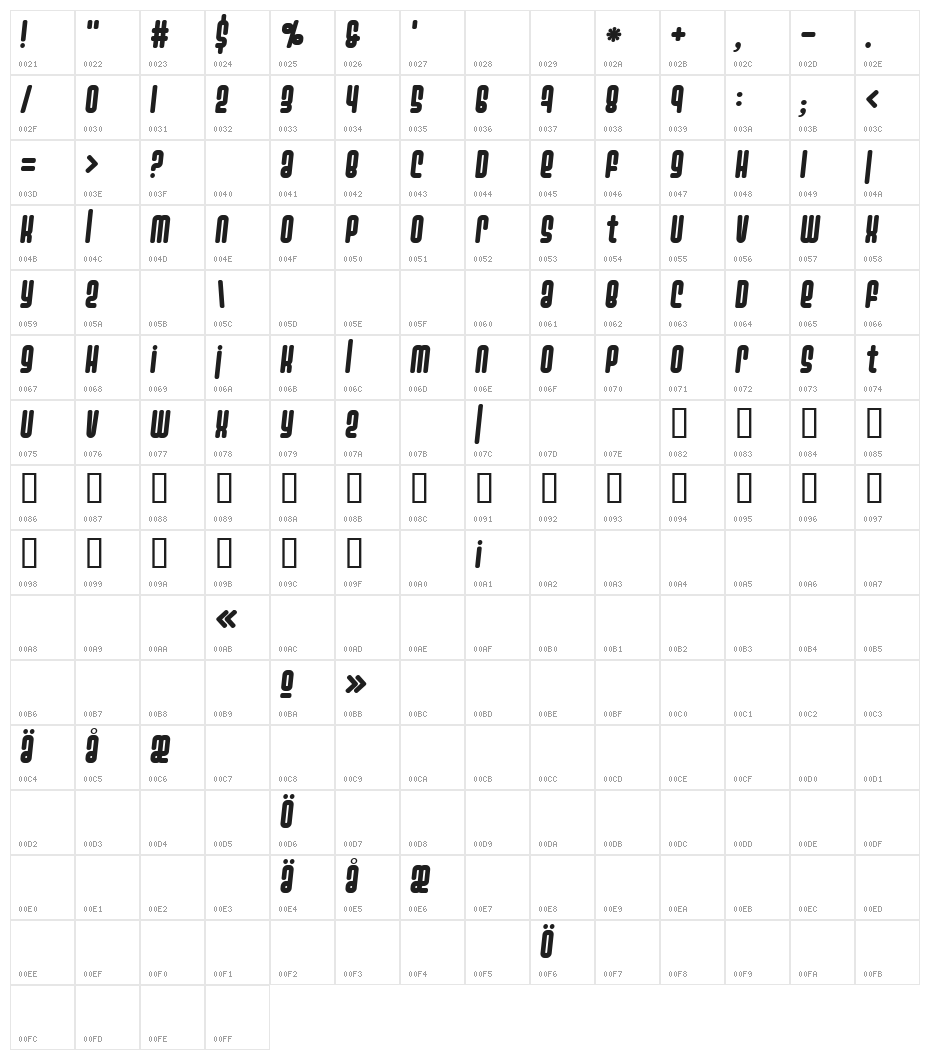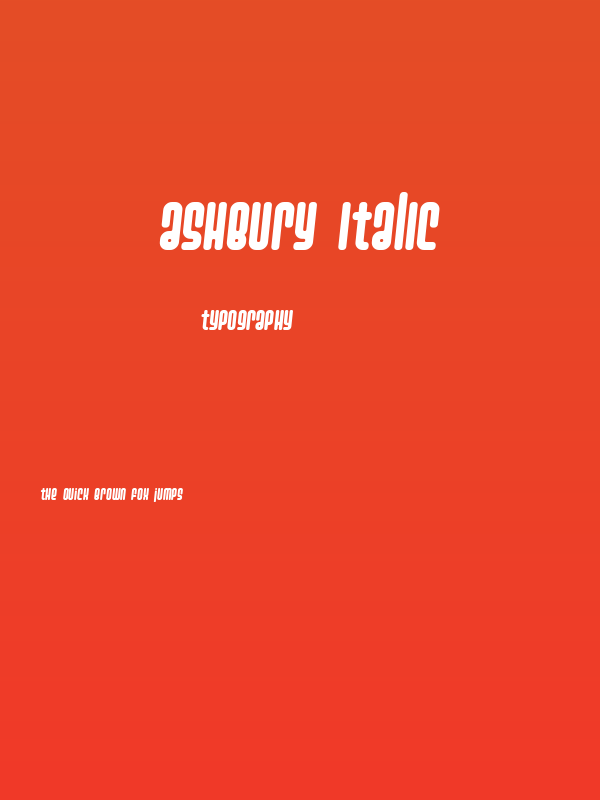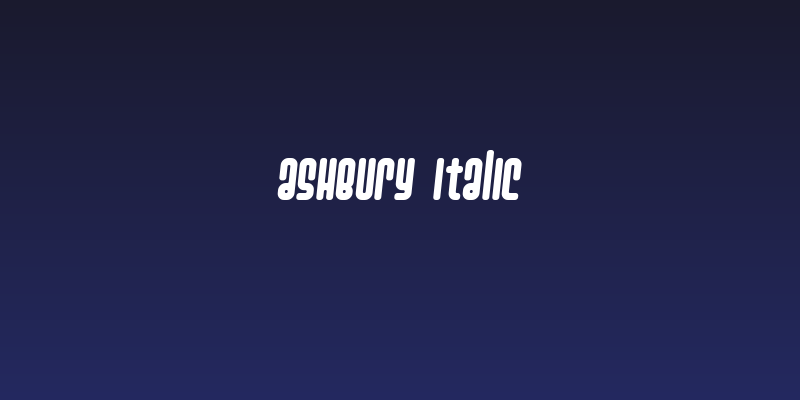
Ashbury Italic Font
Ashbury Italic Description
This font features a bold and rounded style with a playful and modern aesthetic. The characters are slightly condensed, giving it a compact appearance. The strokes are uniformly thick, providing a consistent and robust look across all letters and numbers. The rounded edges and smooth curves contribute to a friendly and approachable feel. The italic slant adds a dynamic and energetic touch, making it suitable for creative and informal applications. The font maintains a balanced and harmonious design, ensuring readability while adding a unique flair.
| Proposed Projects | Ideal for branding, posters, headlines, and creative designs that require a bold and friendly appearance. |